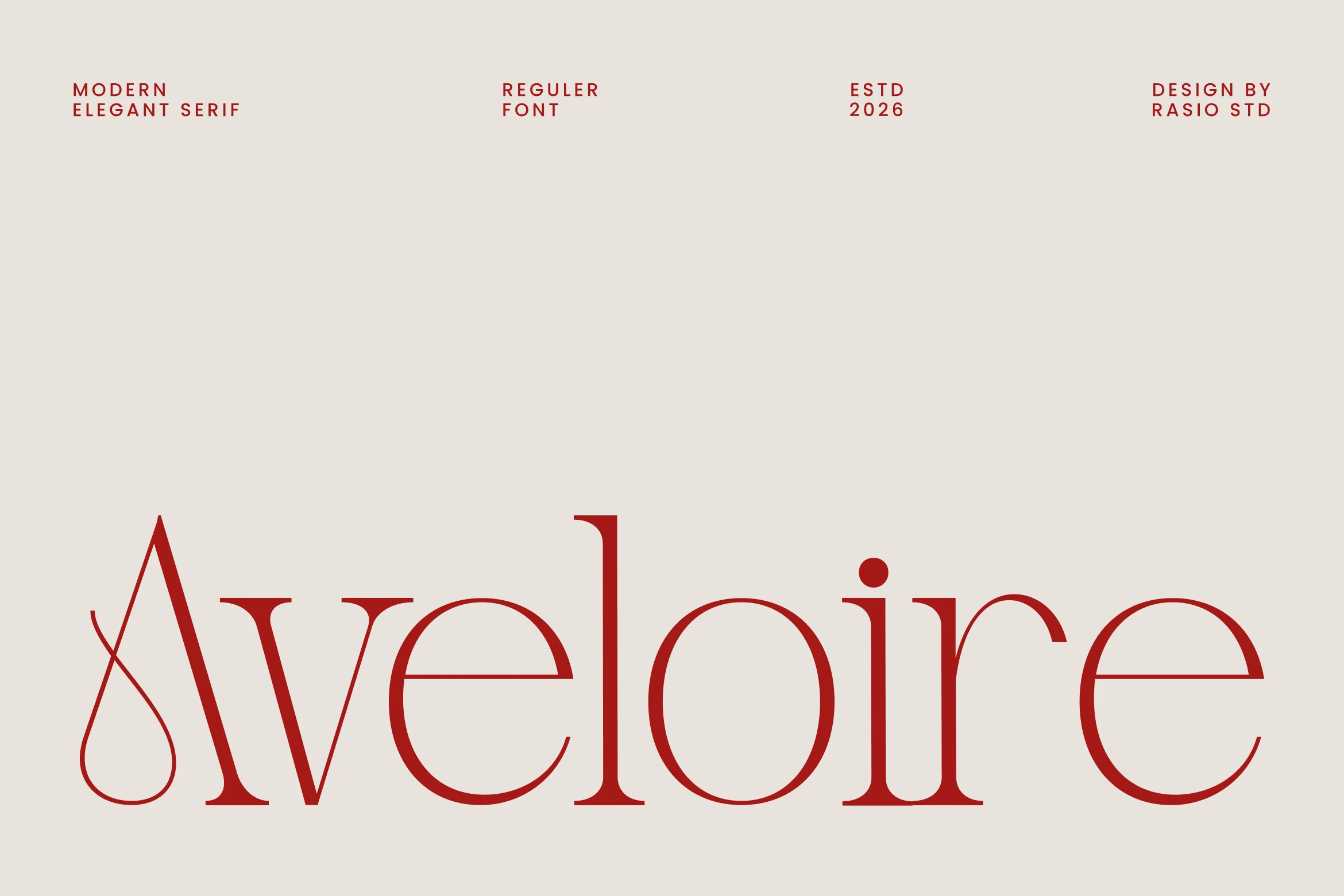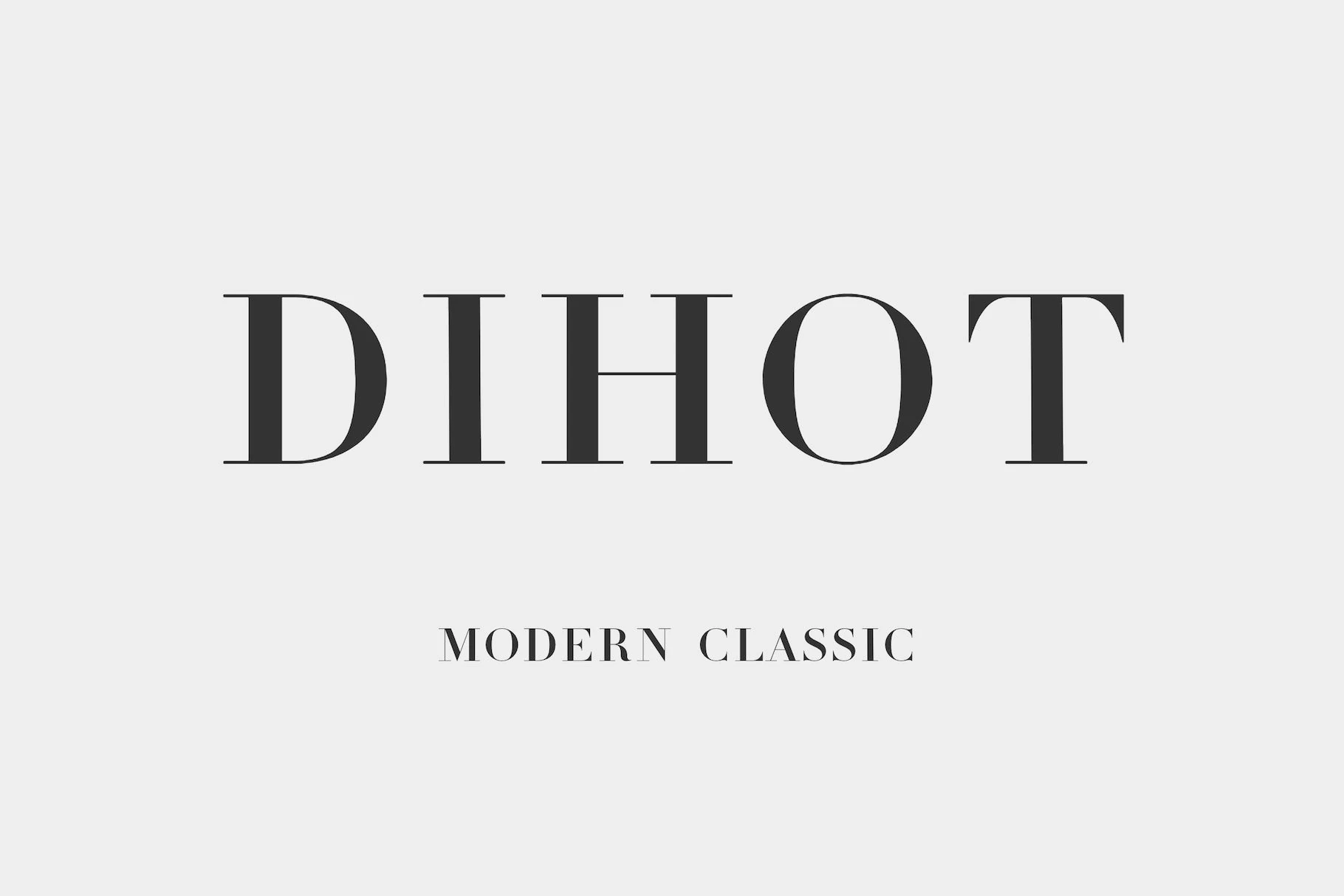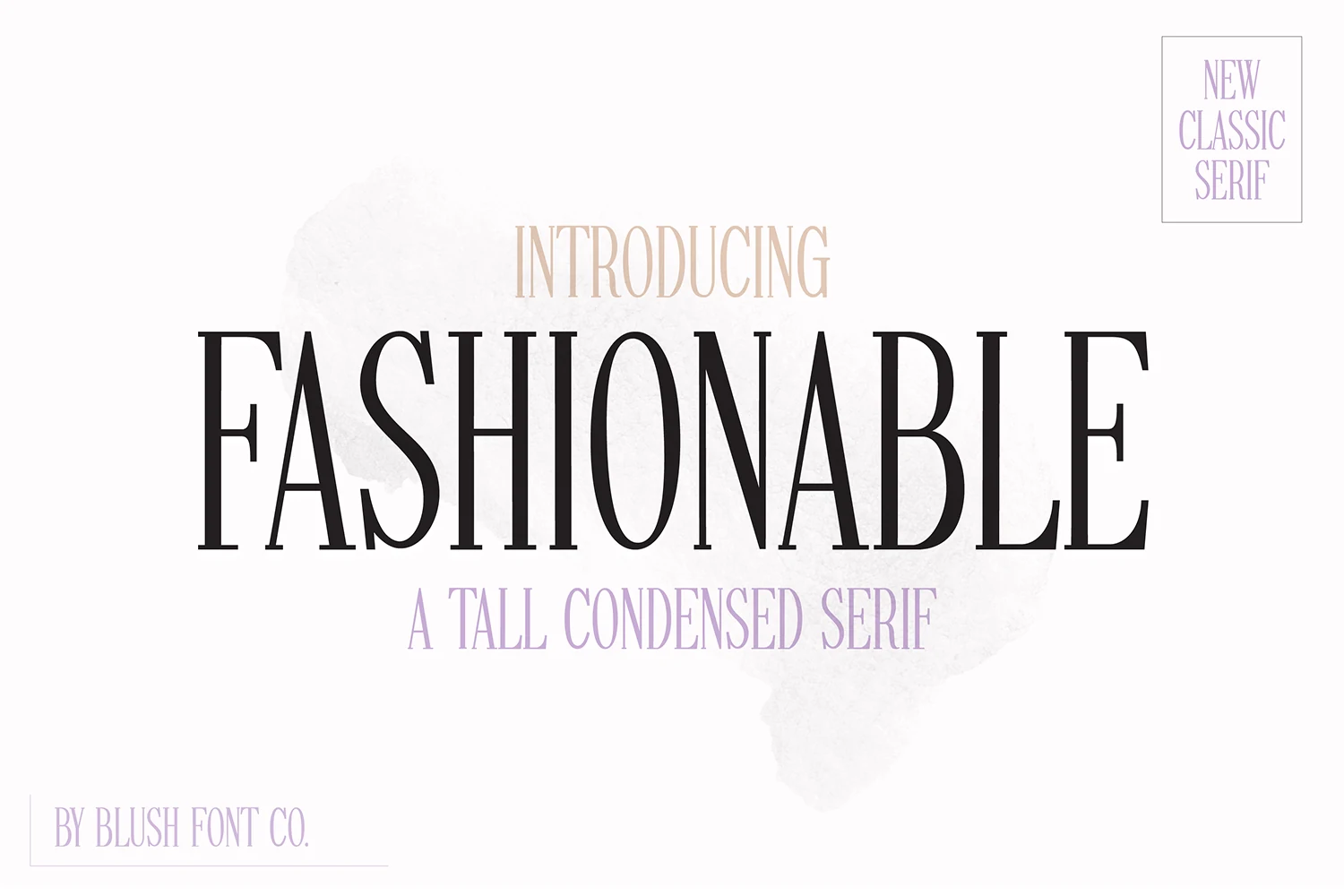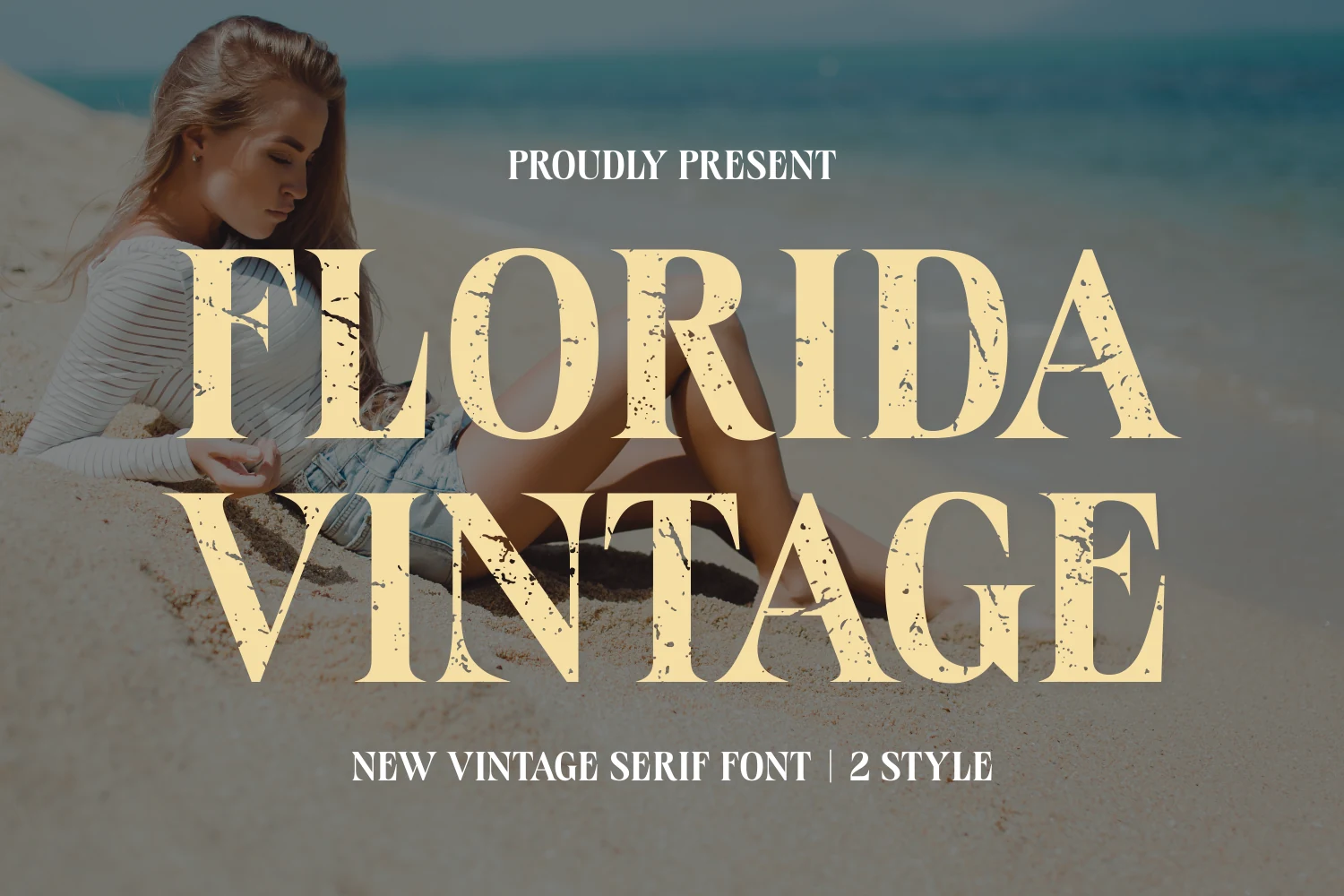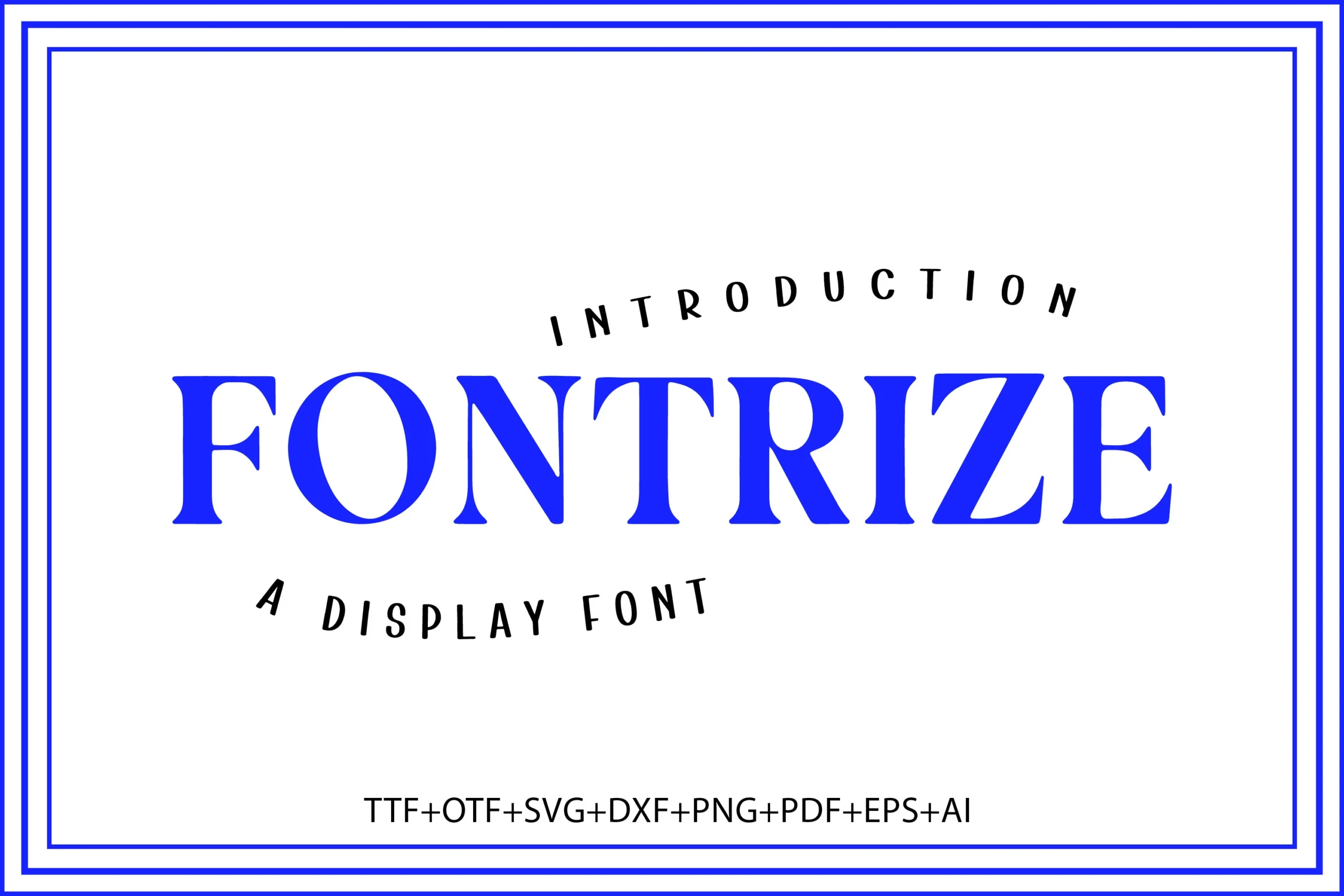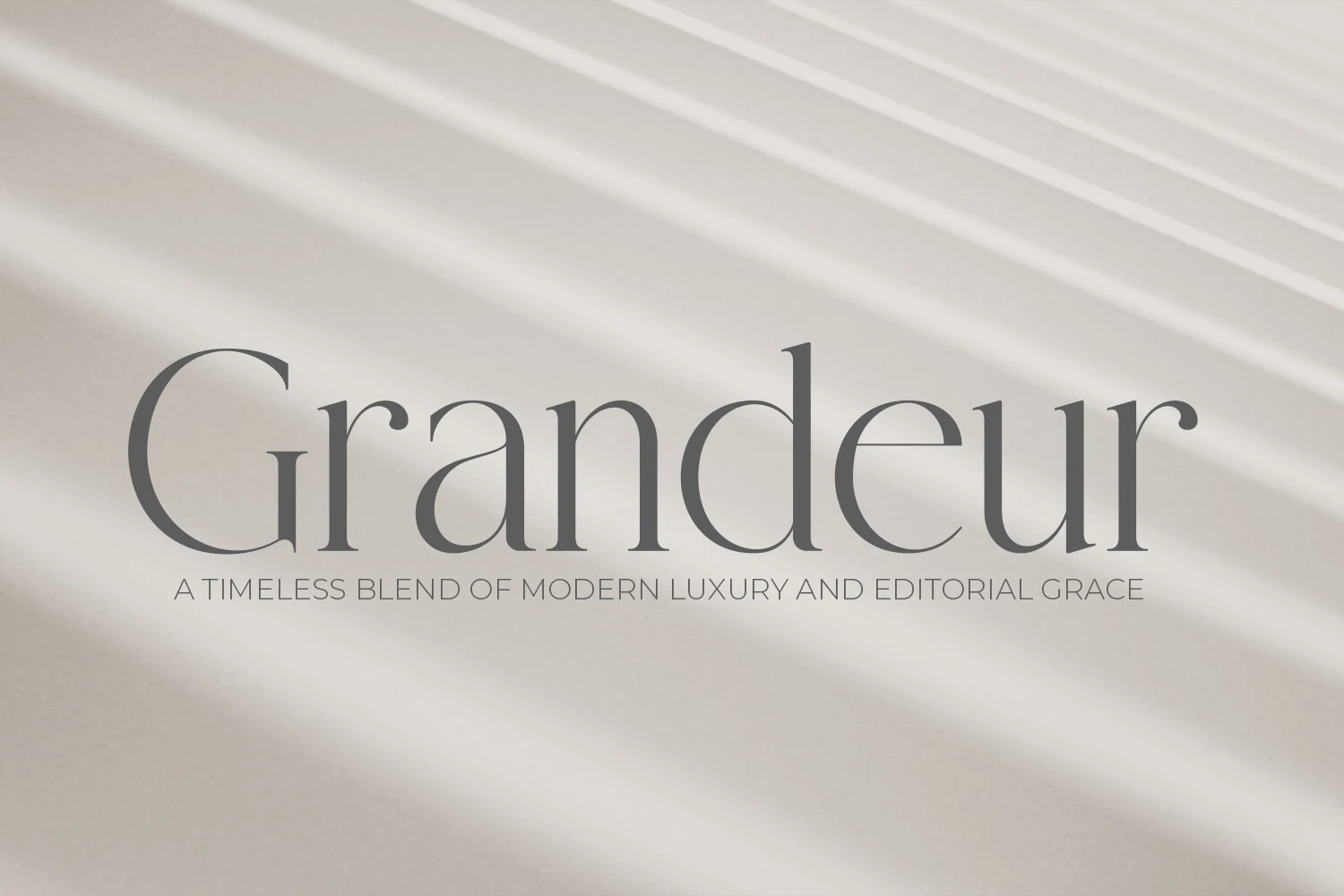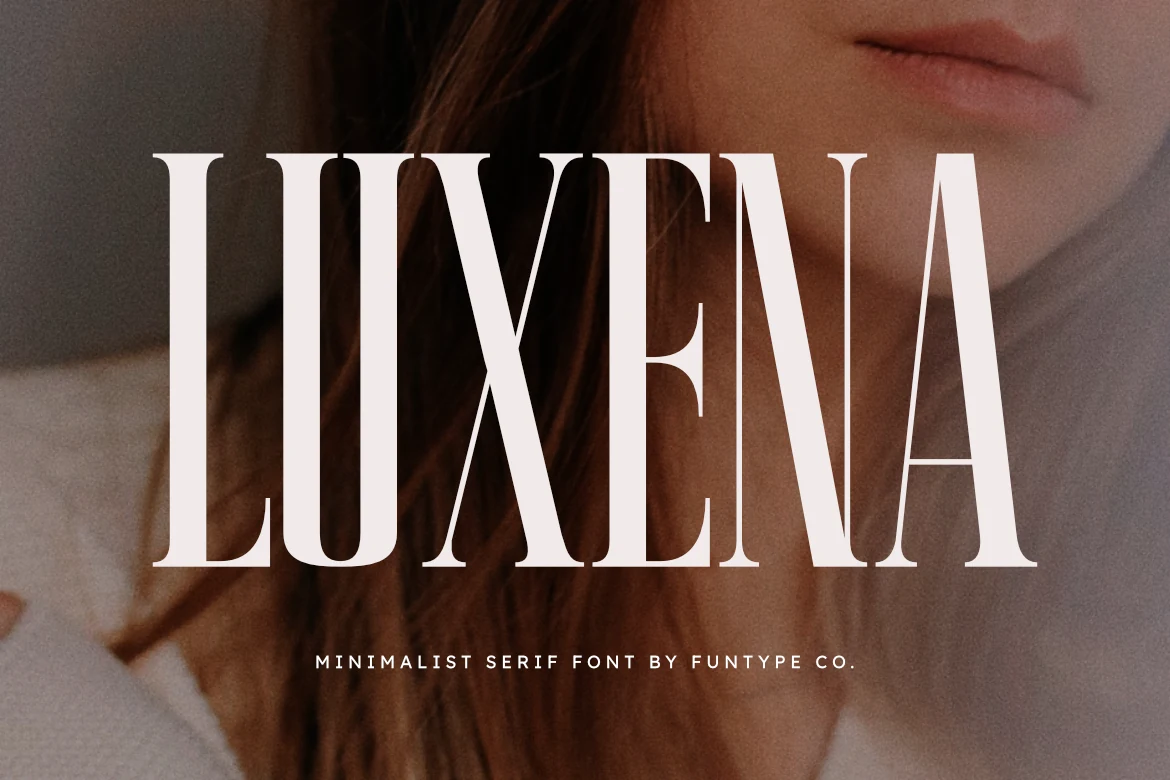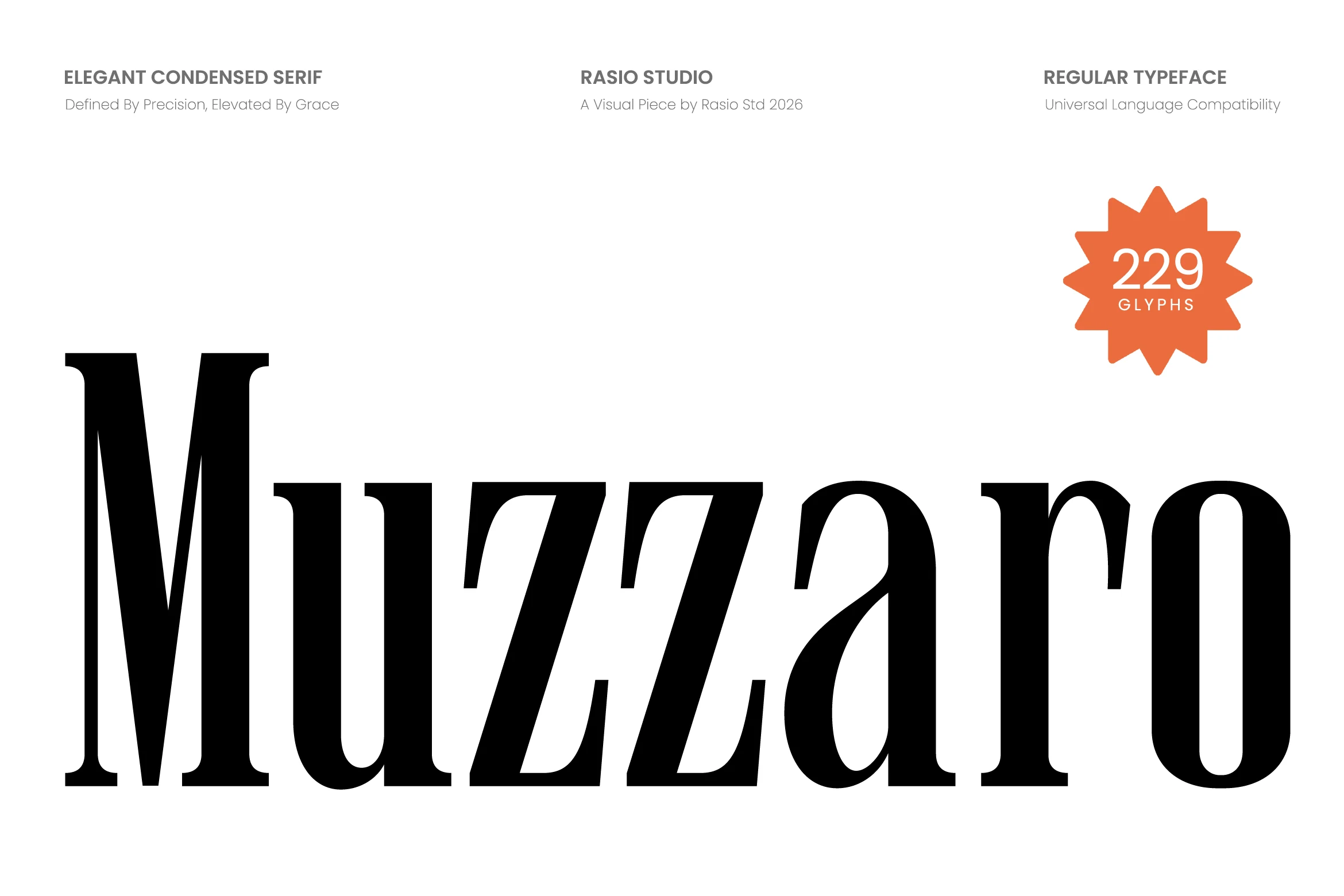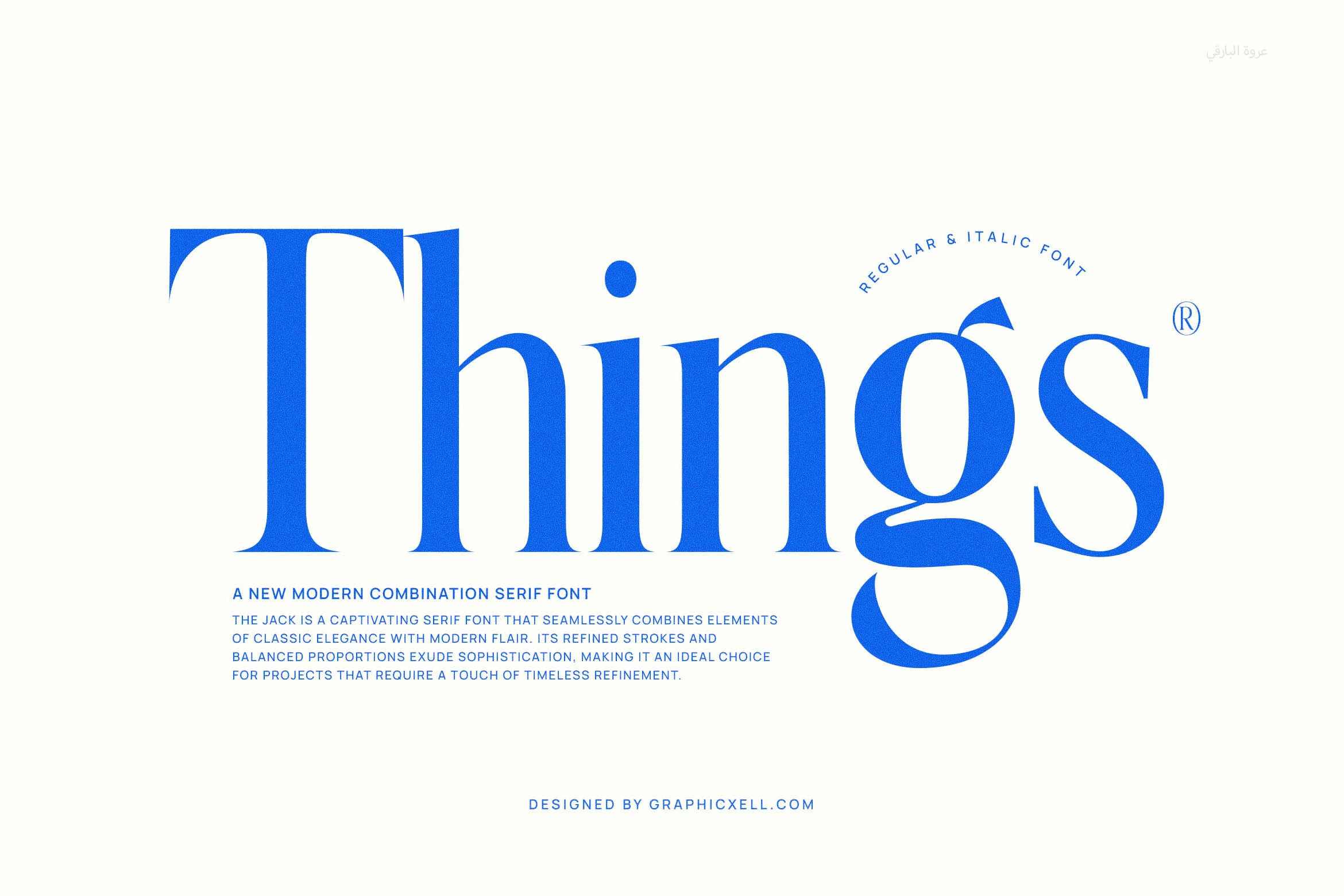
13 Serif Fonts for Logos Designers Need: A Practical Shortlist
Choosing from serif fonts for logos designers need starts with the job your typography must do. Consider the words, their final size, and the mood of the project. The options below are organized to help you compare useful directions before testing candidates in your own layout.
How to evaluate the options
Set the real headline, name, or label in each candidate. Check legibility at the final size, compare the capitals and repeated letters, and leave enough room for decorative details. Use a quieter companion font for long descriptions and other supporting text.
Font Good starting point
Grandeur – Elegant Classic Serif Font logos, editorial designs
Aveloire Font logos, fashion branding
Wolmer Font logos, fashion branding
Dihot Font logos, branding
Vogane Font logos, branding
Paloma Font logos, luxury designs
Things Font logos, fashion branding
Fashionable Font logos, branding
Luxena Font logos, fashion branding
Muzzaro Font logos, fashion branding
Fontrize Font logos, headlines
Strong Font logos, branding
Florida Vintage Font logos, packaging
Grandeur – Elegant Classic Serif Font for logos
Grandeur – Elegant Classic Serif Font preview with thin high-contrast serif lettering and wide spacing
Grandeur – Elegant Classic Serif Font is worth testing for logos, editorial designs, and luxury designs. Look for strong contrast between thick and thin strokes and serif details when comparing it with other options. Check the thinnest strokes at the final display size.
Aveloire Font for logos
Aveloire Font preview with elegant red serif lettering and a decorative swash A for logo design
For logos, fashion branding, and editorial designs, consider Aveloire Font. Its design draws on strong contrast between thick and thin strokes and rounded letter shapes. Check the thinnest strokes at the final display size.
Wolmer Font for logos
Wolmer Font preview with high-contrast white serif lettering and looped terminals for logo design
Wolmer Font can anchor logos, fashion branding, and editorial designs. The main visual cues are strong contrast between thick and thin strokes and serif details. Check the thinnest strokes at the final display size.
Dihot Font for logos
Dihot Font preview with high-contrast modern classic serif letters
Dihot Font is worth testing for logos, branding, and editorial designs. Look for strong contrast between thick and thin strokes and serif details when comparing it with other options. Check the thinnest strokes at the final display size.
Vogane Font for logos
Vogane Font preview with elegant high-contrast serif lettering and flowing curves
For logos, branding, and invitations, consider Vogane Font. Its design draws on strong contrast between thick and thin strokes and serif details. Check the thinnest strokes at the final display size.
Paloma Font for logos
The Paloma Font preview with elegant high-contrast display serif lettering
Paloma Font can anchor logos, luxury designs, and editorial designs. The main visual cues are strong contrast between thick and thin strokes and serif details. Check the thinnest strokes at the final display size.
Things Font for logos
Things Font preview with bold blue modern serif lettering, tall stems, and a sweeping curved g
Things Font is worth testing for logos, fashion branding, and editorial designs. Look for rounded letter shapes and serif details when comparing it with other options. Try it at both headline and label size to judge its clarity.
Fashionable Font for logos
Fashionable Font preview with tall condensed serif lettering and elegant high-contrast strokes
For logos, branding, and invitations, consider Fashionable Font. Its design draws on strong contrast between thick and thin strokes and narrow proportions. Check the thinnest strokes at the final display size.
Luxena Font for logos
Luxena Font preview with tall bold minimalist serif lettering
Luxena Font can anchor logos, fashion branding, and posters. The main visual cues are strong contrast between thick and thin strokes and serif details. Check the thinnest strokes at the final display size.
Muzzaro Font for logos
Muzzaro Font preview with bold condensed serif lettering and sharp high-contrast curves
Muzzaro Font is worth testing for logos, fashion branding, and magazine covers. Look for strong contrast between thick and thin strokes and narrow proportions when comparing it with other options. Check the thinnest strokes at the final display size.
Final checks before using a font